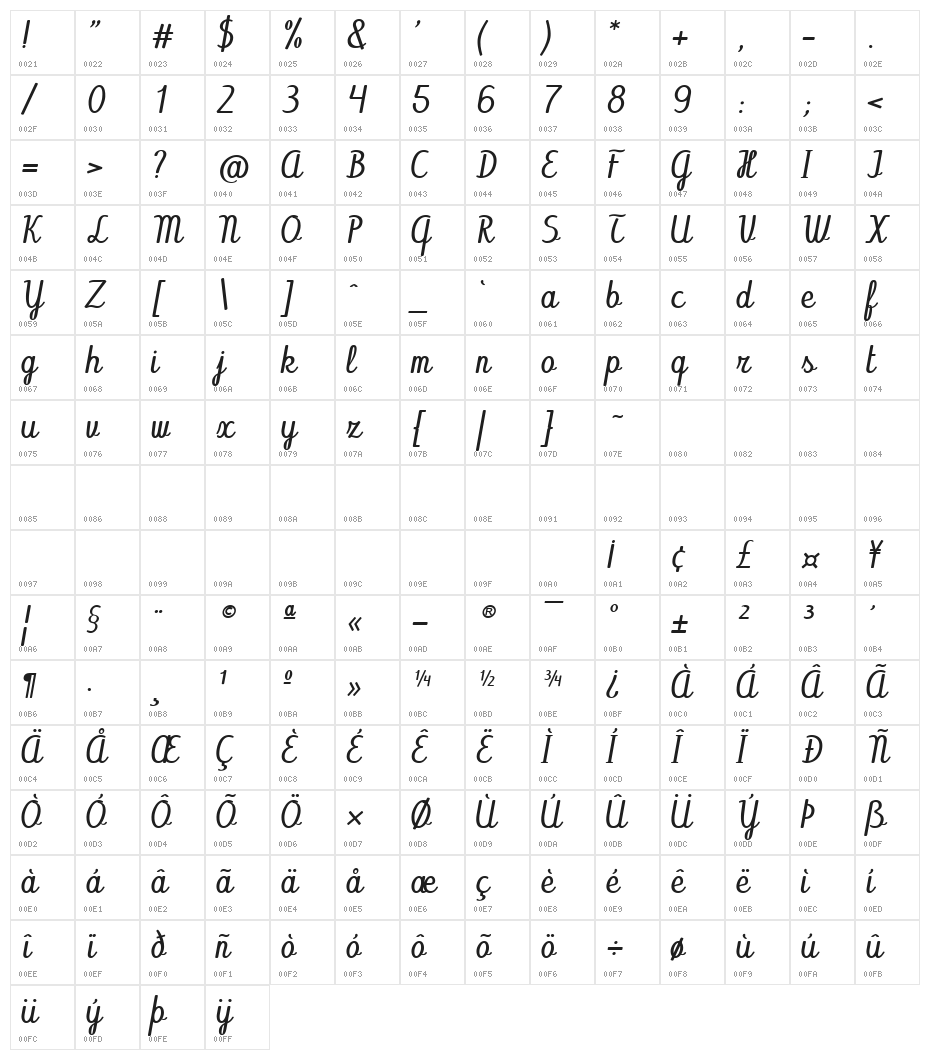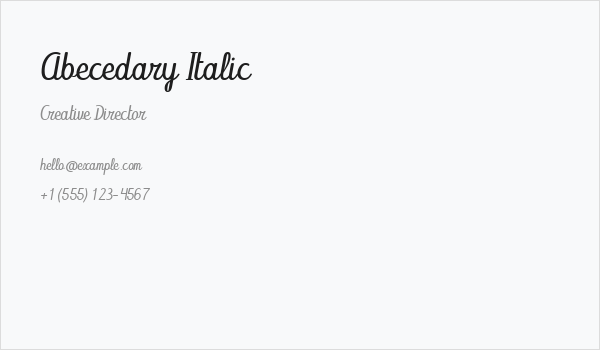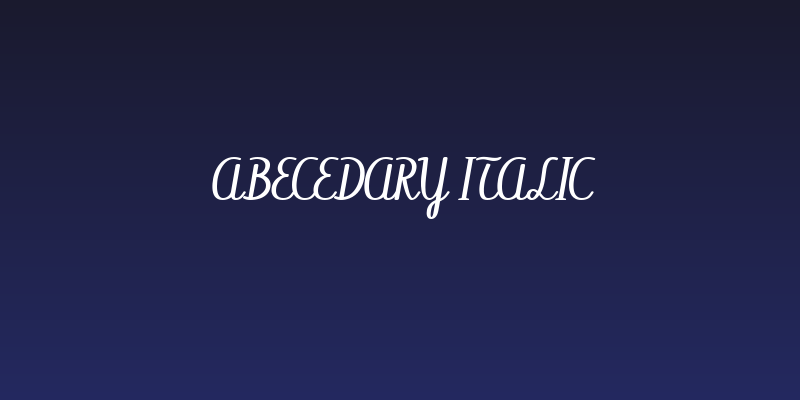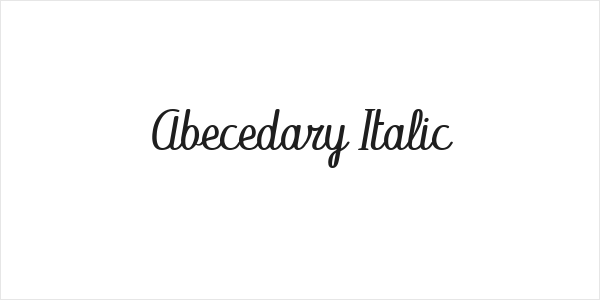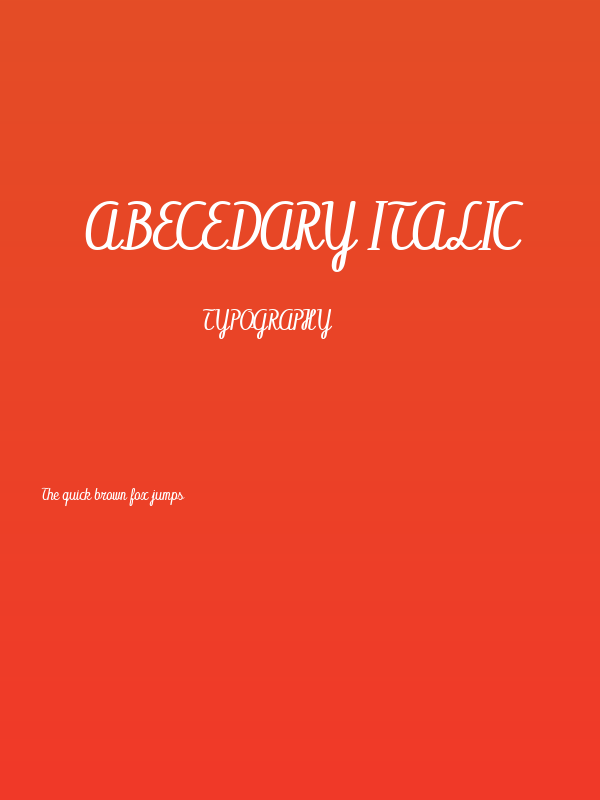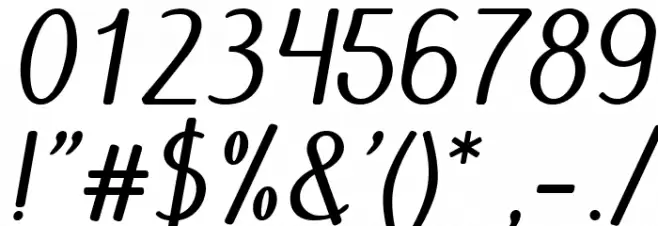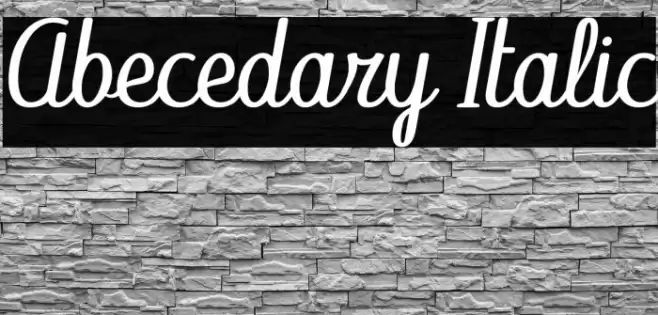
Abecedary Italic Font
Abecedary Italic Description
This font features a flowing, cursive style with elegant, sweeping curves and a consistent slant to the right, giving it a dynamic and fluid appearance. The characters are well-connected, enhancing the script-like quality. The uppercase letters are slightly more elaborate, while the lowercase letters maintain a smooth, continuous flow. The numerals and special characters are designed to match the overall aesthetic, ensuring a cohesive look. This font exudes a sense of sophistication and grace, making it suitable for formal and decorative purposes.
| Overall Style | Elegant, Decorative |
| Use Case | Headlines, Invitations, Decorative text |
| Proposed Projects | Ideal for wedding invitations, elegant branding, greeting cards, and decorative headings. |